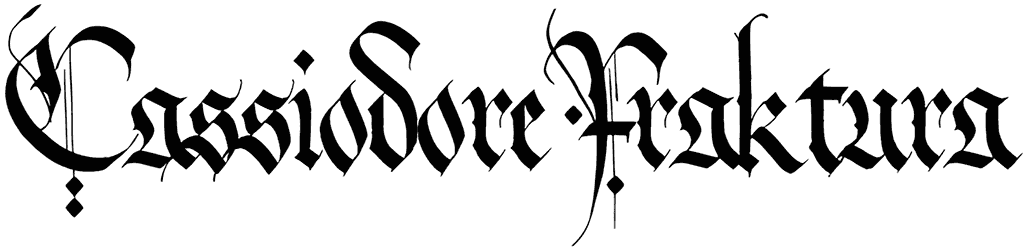
Cassiodore Fraktura Font
Designed byCharles Boisart
No matter what your project is and how much time you need till your deadline, we’re always ready to offer you pretty awesome opportunities for all of your projects. Would you look at this gorgeous medieval font for inspiring ideas?
Police créée à partir d’un abécédaire calligraphié.